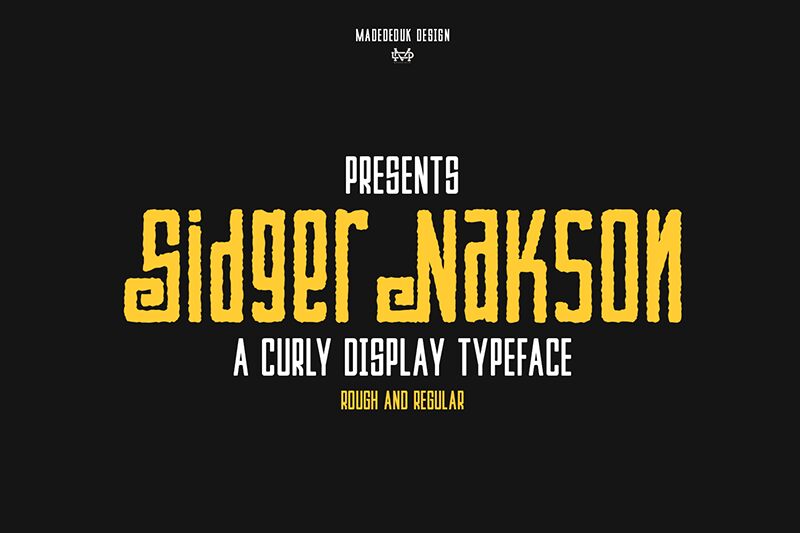
Sidger Nakson Demo
Sidger Nakson font by madeDeduk blends industrial, geometric, and retro-futuristic vibes into an appealing condensed sans serif style. Its compact and clean construction presents a distinct modernist influence that results in legible combinations. Each minimal character is built using interesting shapes and slightly rounded curves that differentiate Sidger Nakson from other similar typefaces in its category.